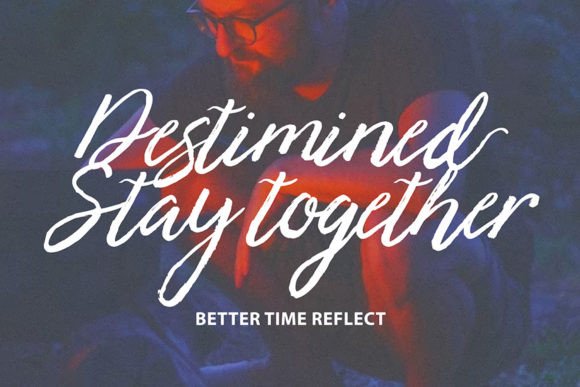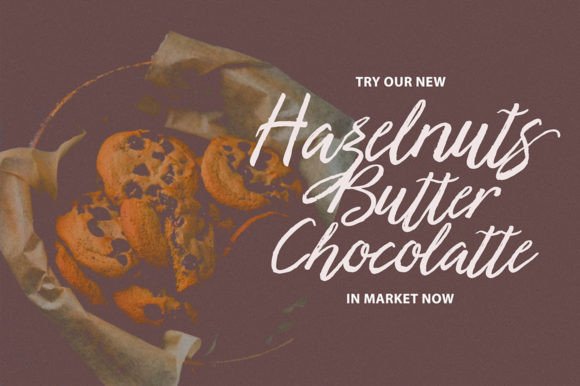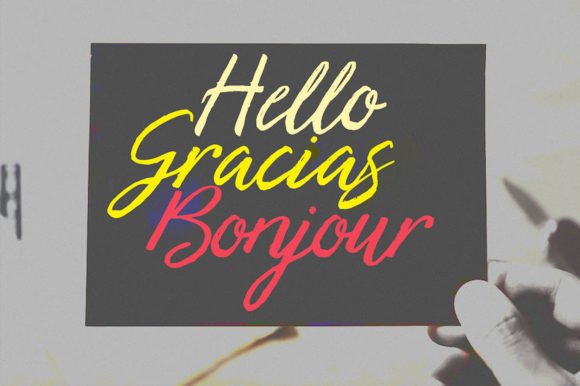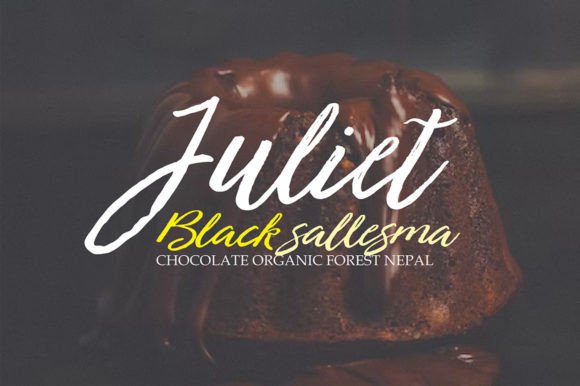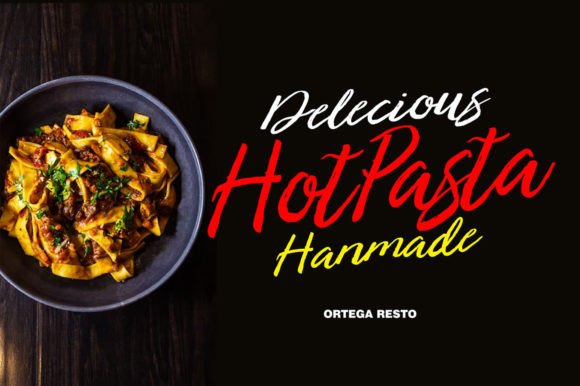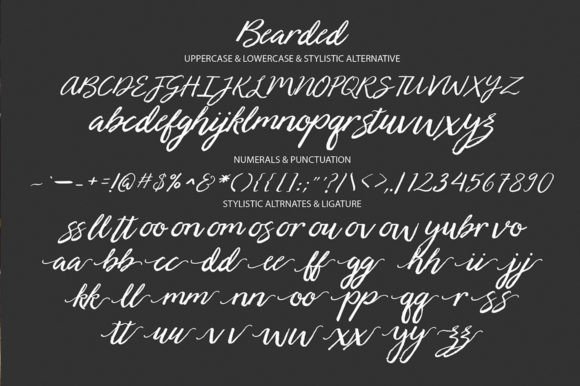
Introducing Bearded Font: Elevate Your Craft with Modern Style
In the world of design, the right typography can make all the difference. A well-crafted font can elevate your project, convey your message, and leave a lasting impression on your audience. If you’re a designer, crafter, or DIY enthusiast looking to add a touch of modern style to your work, look no further than Bearded Font. This stunning brush script font is designed to help your craft stand out from the competition with minimal effort.
What is Bearded Font?
Bearded Font is a modern and stylish brush script font that exudes elegance and sophistication. With its flowing lines and smooth curves, this typeface is perfect for a wide range of design applications, from branding and packaging to invitations and digital media. Whether you’re creating a logo, a poster, or a social media graphic, Bearded Font is sure to make your project look professional and visually appealing.
Key Features of Bearded Font
So, what sets Bearded Font apart from other fonts? Here are some of its key features:
- Modern and Stylish Design: Bearded Font boasts a fresh and contemporary design that’s perfect for designers and crafters who want to create modern and trendy projects.
Benefits of Using Bearded Font
So, why should you choose Bearded Font for your next project? Here are some benefits of using this amazing font:
- Stand Out from the Competition: With Bearded Font, you can create unique and eye-catching designs that set you apart from the competition.
- Professional-Looking Designs: Bearded Font is designed to help you create professional-looking designs that impress your audience.
- Time-Saving: With its ease of use and PUA encoding, Bearded Font saves you time and effort, allowing you to focus on other aspects of your project.
Who Can Use Bearded Font?
Bearded Font is perfect for a wide range of designers and crafters, including:
- Graphic Designers: If you’re a graphic designer looking for a modern and stylish font for your next project, Bearded Font is an excellent choice.
- Crafters: Whether you’re a DIY enthusiast or a professional crafter, Bearded Font can help you create beautiful and eye-catching designs for your products.
- Digital Artists: If you’re a digital artist looking for a font that can add a touch of elegance to your artwork, Bearded Font is a great option.
In conclusion, Bearded Font is an excellent choice for designers and crafters looking for a modern and stylish brush script font. With its PUA encoding, ease of use, and professional-looking design, this font is sure to elevate your craft and help you stand out from the competition. So why wait? Download Bearded Font today and start creating stunning designs that impress your audience.